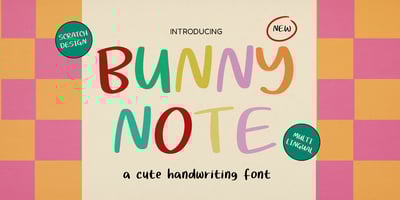
Bunnynote Font Family was designed by Gitayogi Irhandi and published by Scratch Design. Bunnynote contains 1 styles and family package options. Welcoming Bunnynote!Let’s meet our cute handwriting font, Bunnynote. This font is cute, simple, dynamic, and has a sweet character. This font will be perfect for children’s books, posters, quotes, branding, logos, and other designs that need cute style. Bunnynote will make you smile and will be perfect with mix-and-match colors.Includes:- Uppercase and lowercase- Numbers & punctuation- Multilingual supportThank you